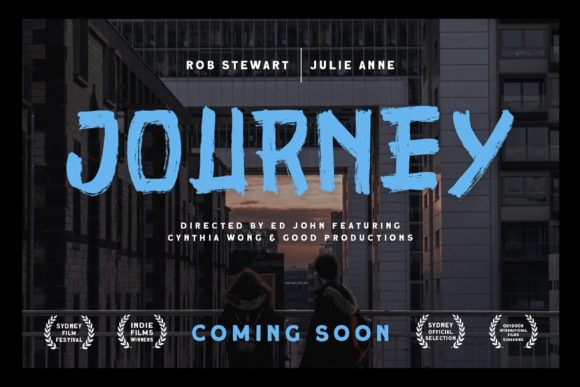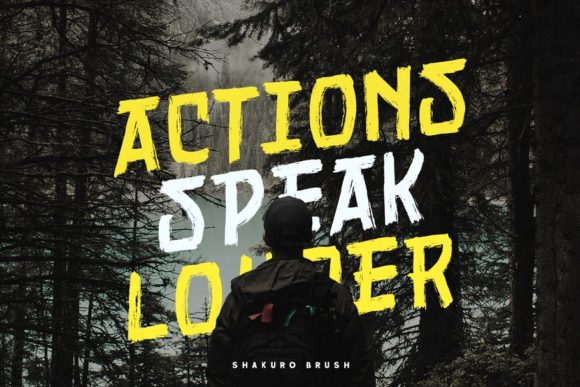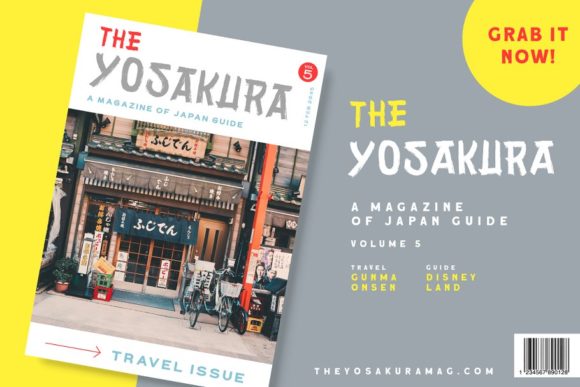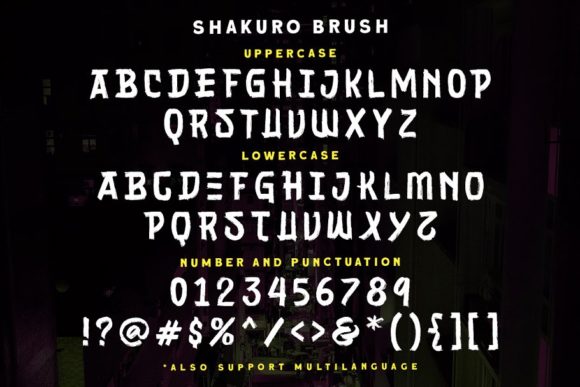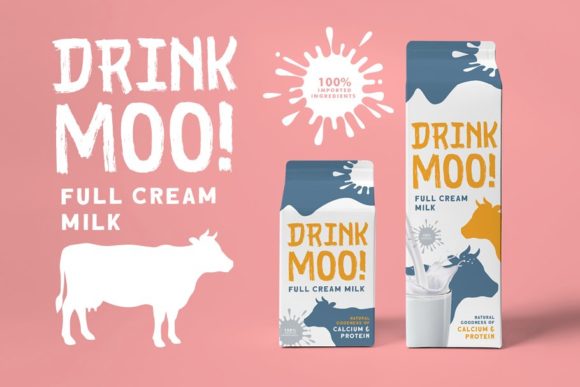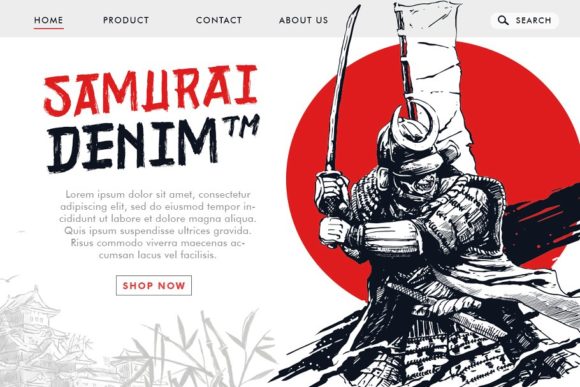
Introduction to Shakuro Font
Shakuro is a bold, remarkable display font, created by using a brush pen.
It has a unique letterform inspired from Japanese kanji typography This typeface font will look truly outstanding in a wide range of contexts, such as headlines, titles, logos or anything you can think of.